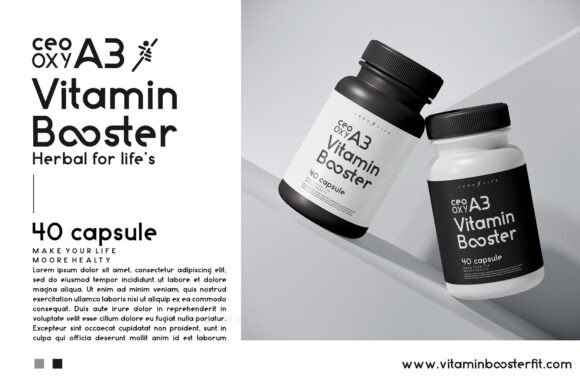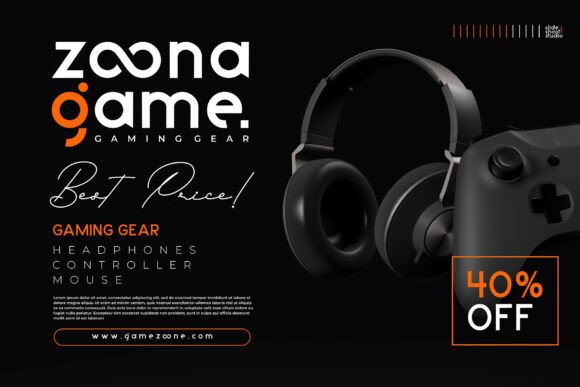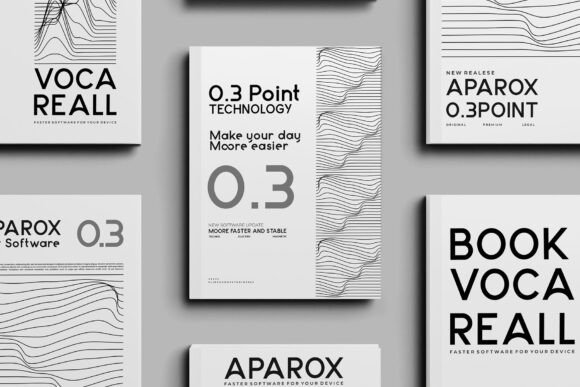
Introduction to Legand Font
Legand is a sans serif font with a modern, elegant, and futuristic look.
This font is perfect for invitation card designs, company logos, movie titles, movie names, business cards, book titles, brand names, and various other designs Its stylish alterations and ligatures make this font a perfect partner for any project.
Key Features of Legand Font